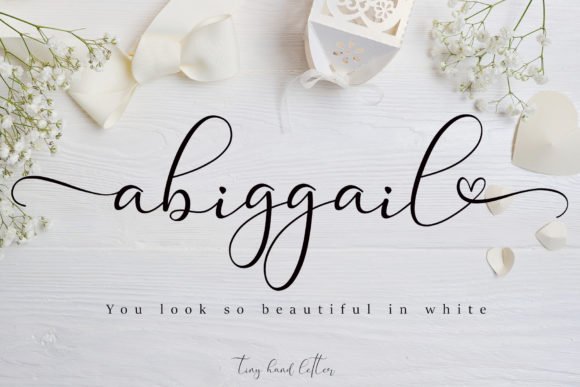
Introduction to Abiggail Font
Abiggail is a sweet font with beautiful swashes and ligatures.
Why Choose Abiggail Font?
Abiggail Font offers exceptional quality and versatility, making it a valuable addition to your design toolkit. Whether you’re creating for personal projects or commercial use, Abiggail Font delivers professional results.